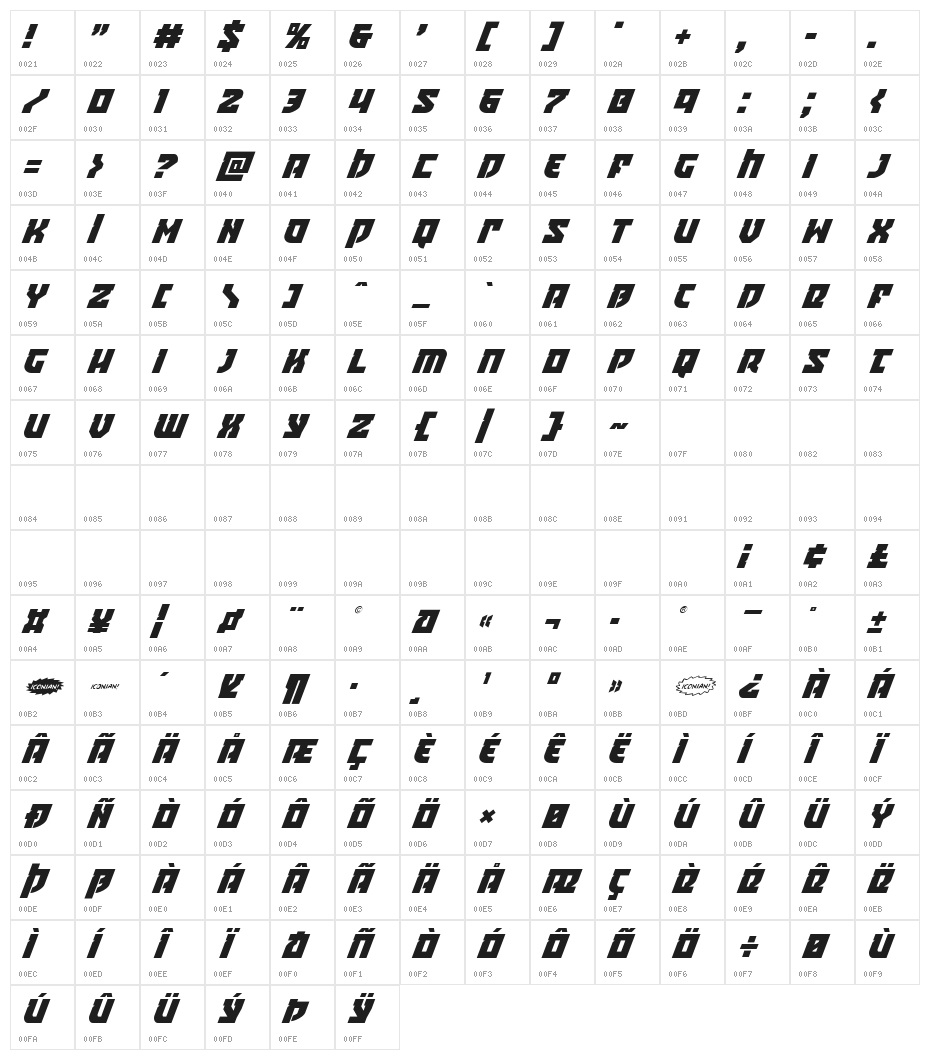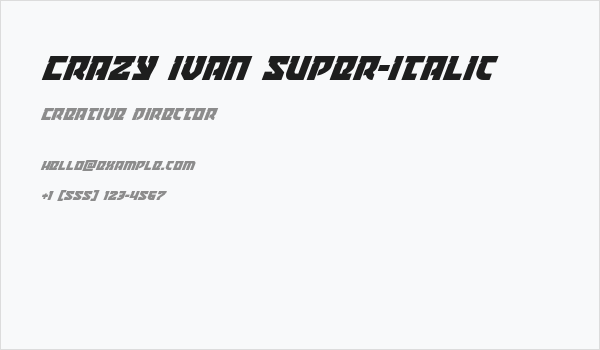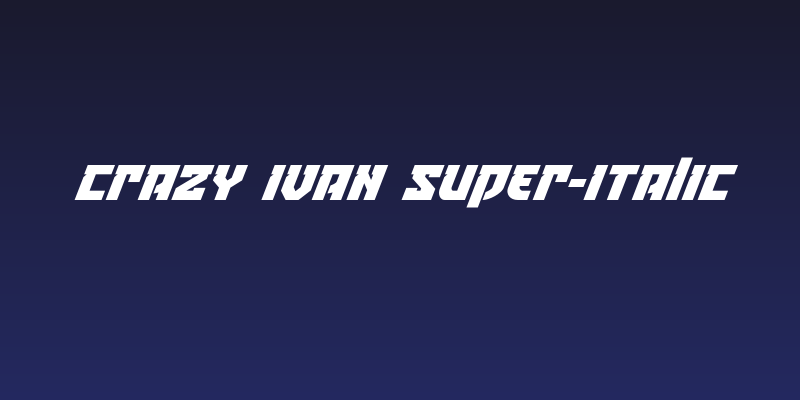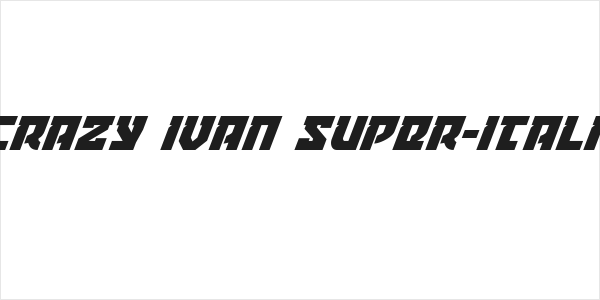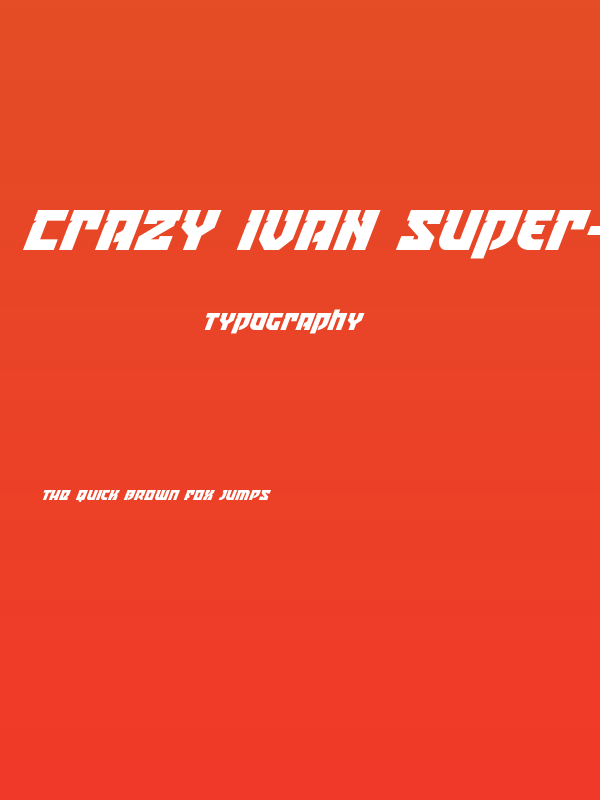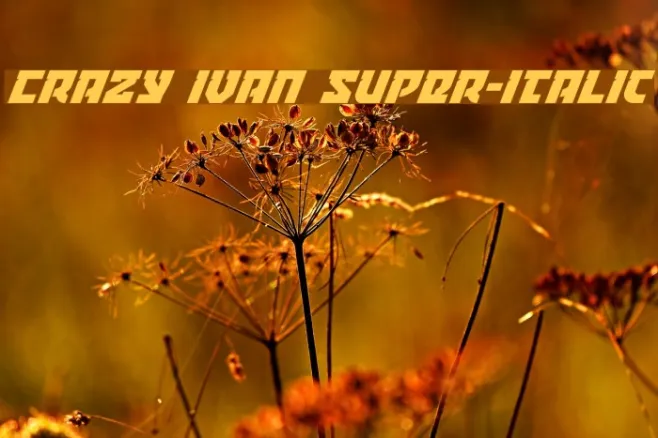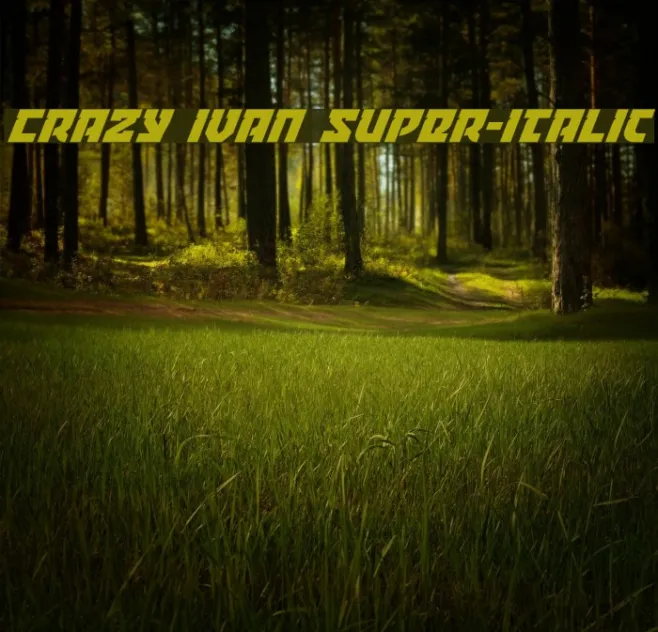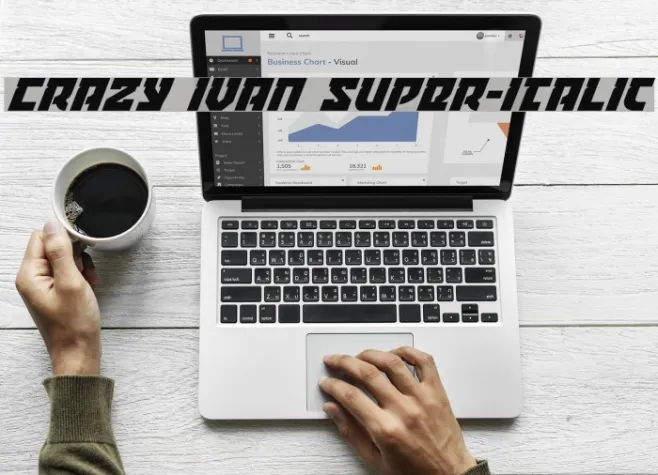
Crazy Ivan Super-Italic Font
Crazy Ivan Super-Italic Description
This font features a bold and dynamic design with a strong italic slant, giving it a sense of motion and energy. The characters are angular and geometric, with sharp edges and a futuristic appearance. The uppercase and lowercase letters maintain a consistent style, while the numbers and special characters complement the overall aesthetic. The font's boldness and unique style make it stand out, making it suitable for attention-grabbing designs.